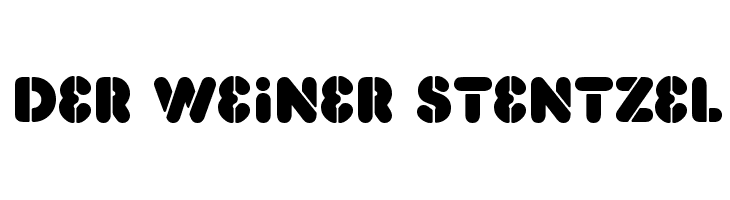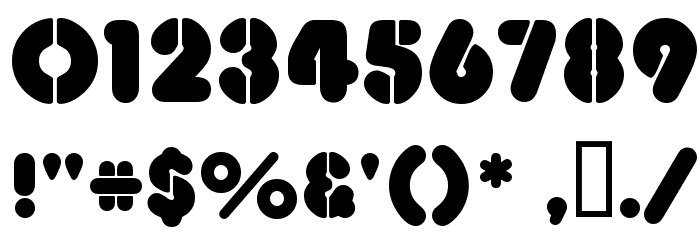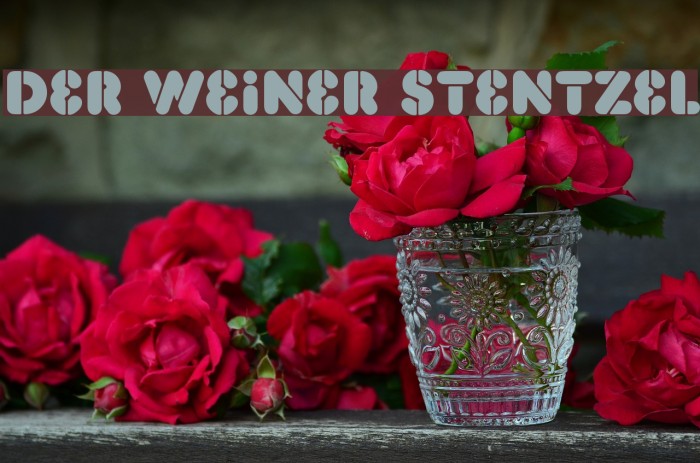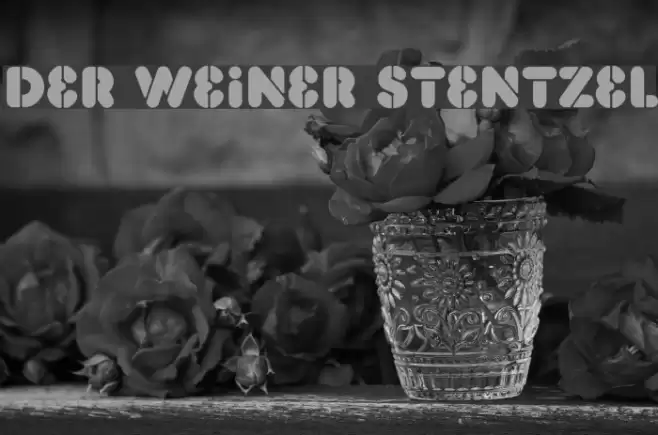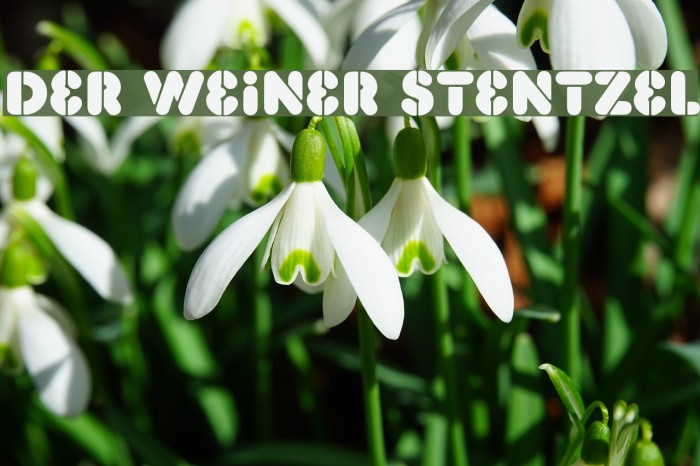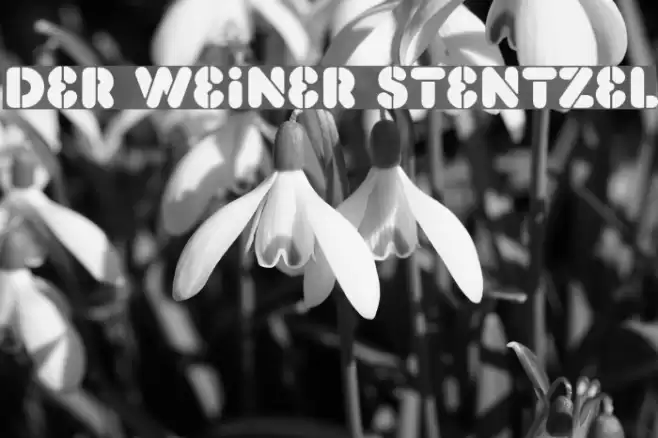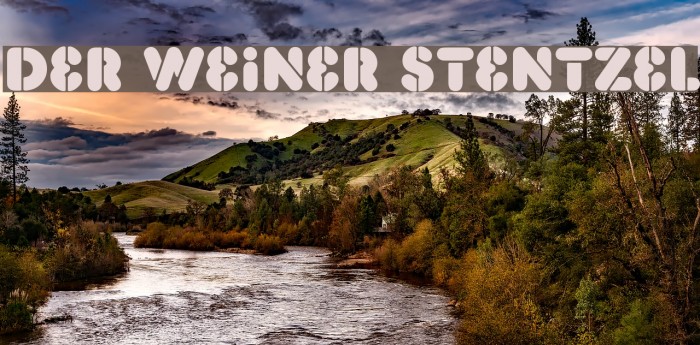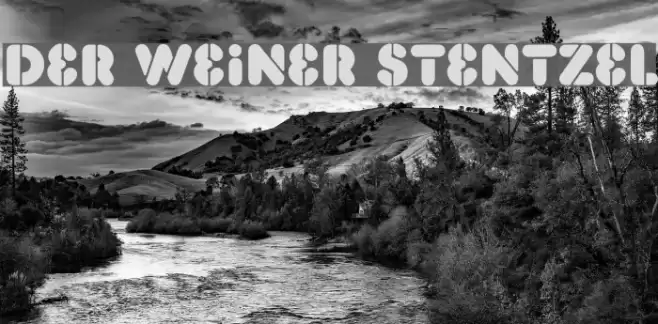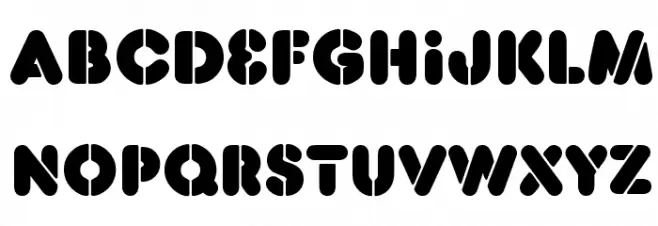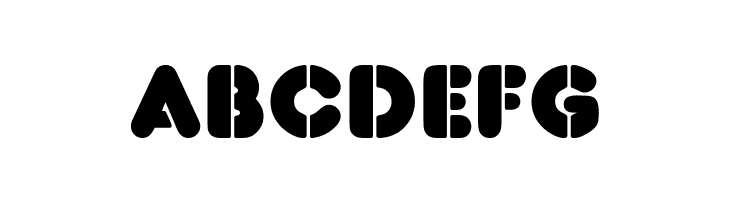
Der Weiner Stentzel Font
Der Weiner Stentzel Description
This font features a bold and striking design with a geometric, stencil-like appearance. The characters are composed of solid, rounded shapes with distinct cutouts, giving them a modern and industrial feel. The uppercase and lowercase letters maintain a consistent style, with the same boldness and unique cutout patterns. Numbers and special characters follow this aesthetic, ensuring uniformity across all elements. The font's design is eye-catching and suitable for projects that require a strong visual impact.
A bold, geometric stencil-style font with distinct cutouts from Uncategorized fonts.
• Proposed Projects: Ideal for branding, posters, signage, and any project needing a bold, industrial look.
• Overall Style: Modern
• Use Case: Headlines, Logos, Posters